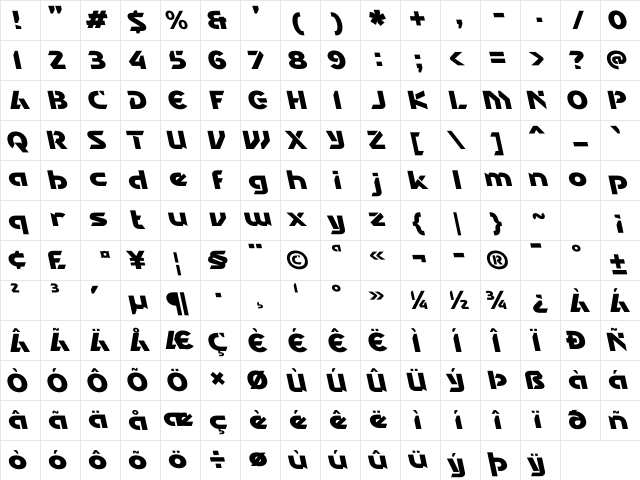
Complete Robotic Cyborg Back Italic Regular glyph index. Displaying only characters natively supported by Robotic Cyborg Back Italic Regular font.
Robotic Cyborg Back Italic is a composed and adaptable typeface that performs quietly and consistently across a wide range of design contexts. The slanted form adds forward momentum and visual energy.
Pro Tip: Use Robotic Cyborg Back Italic for emphasis, pull quotes, and subheadings where its slanted energy can add rhythm to the layout.